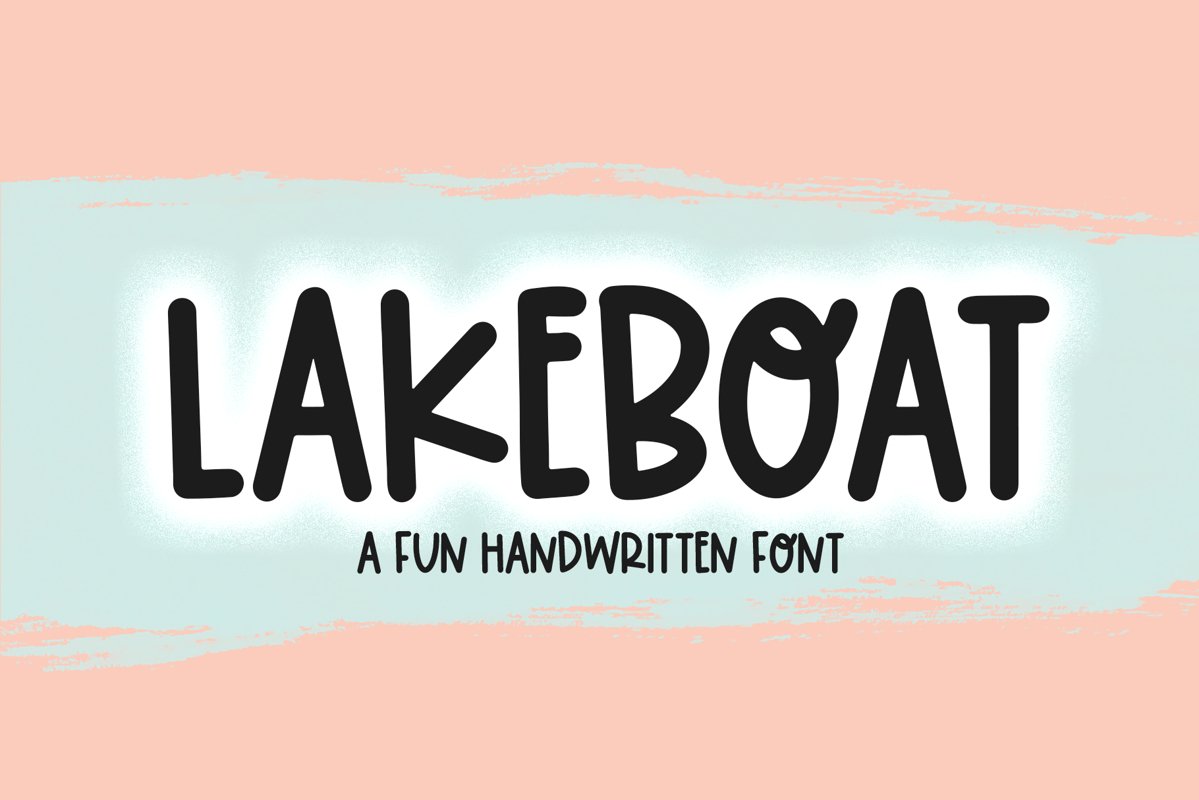
Lakeboat is a quirky caps font!
This font is perfect for quotes, shirt designs, websites, branding, children's designs, svg designs, blogs, logos, invitations and more!